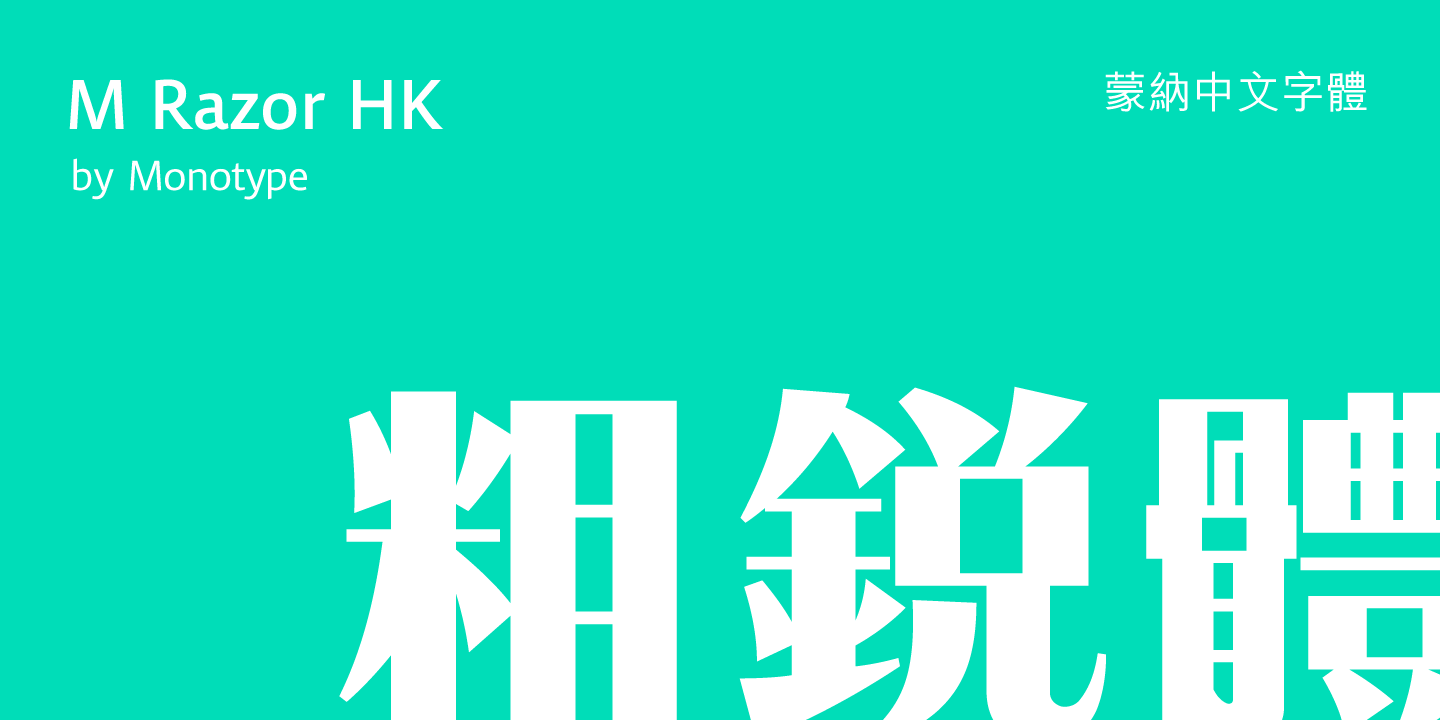
M Razor HK Font is a sharp, edgy, and ultra-modern typeface that captures the sleek precision of contemporary design and digital aesthetics. This distinctive font is perfectly suited for projects that demand a cutting-edge, high-tech, or dynamic visual statement. Imagine M Razor HK Font gracing the titles of a futuristic video game, adding an undeniable sharpness to tech startup branding, or enhancing the visual impact of electronic product packaging. It excels in digital interfaces, making it ideal for web design, mobile apps, and interactive displays where a sense of speed and precision is paramount. Its narrow, often angular forms and clean lines also make it an excellent choice for sports branding, action movie posters, and any design that needs to convey speed, accuracy, and a minimalist yet powerful presence.
What makes M Razor HK Font so exciting is its unique ability to combine extreme legibility with a strong, almost industrial or architectural aesthetic. Unlike overly decorative fonts, M Razor HK Font strips away unnecessary elements to deliver its message with a directness and force that is both modern and memorable. It projects an aura of efficiency, technological advancement, and a refined sharpness, making it an excellent choice for brands and individuals who want to communicate innovation, precision, and forward momentum. This font truly performs as a versatile tool for impactful typography, offering both aesthetic integrity and robust functionality that can elevate any project, from sleek corporate communications to dynamic marketing materials.
M Razor HK Font typically focuses on its distinctive display characteristics, often available in a standard regular weight, possibly with a few complementary bold or condensed variations to enhance its powerful nature. While it may not feature an extensive range of weights like a traditional text font, its strength lies in the singular power and consistent, formidable design of its primary form. Its strong, often monolinear strokes and precise angles ensure that its distinctive appearance is maintained across various applications, making it highly effective for impactful headlines, commanding logos, and designs where a sharp, modern, and memorable visual impact is desired.